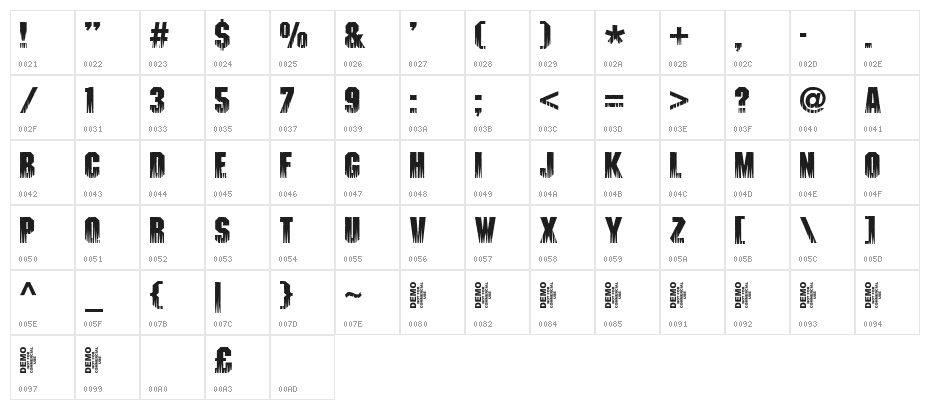
Kuhtaamia DEMO Font
Kuhtaamia DEMO Description
This font features a bold, dramatic style with a unique distressed effect that gives the impression of dripping or melting. The characters are all uppercase, with a strong geometric structure that is both eye-catching and impactful. The design is reminiscent of horror or thriller themes, making it ideal for projects that require a sense of urgency or intensity. The numbers and special characters maintain the same distressed aesthetic, ensuring consistency across all text elements. The overall look is both modern and edgy, perfect for creating standout headlines or logos.
| Overall Style | Modern, Edgy |
| Proposed Projects | Ideal for horror movie posters, edgy branding, Halloween event flyers, and music album covers. |